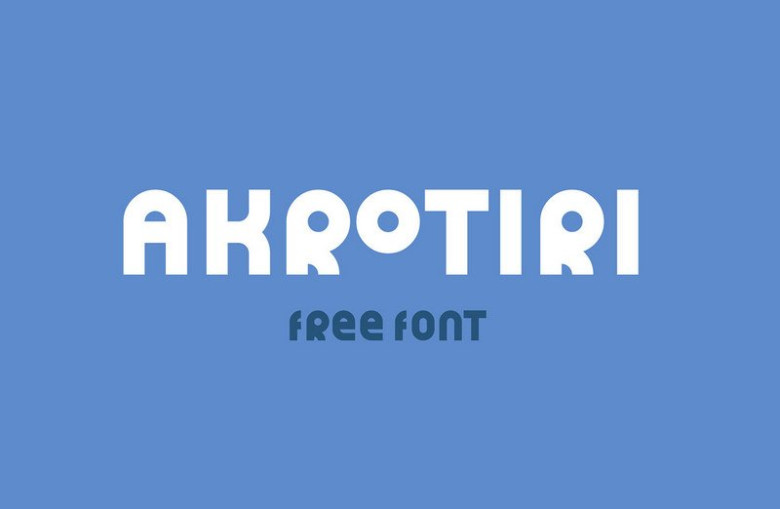
Akrotiri Typeface
Introducing Akrotiri font, a simple but clean and elegant sans serif. Bold clean lines build a solid foundation for this one of a kind typeface, this timeless display font will give a brilliant stroke of authenticity to your next creative project. Perfect for magazine layouts, invitations, logos, or other artwork.